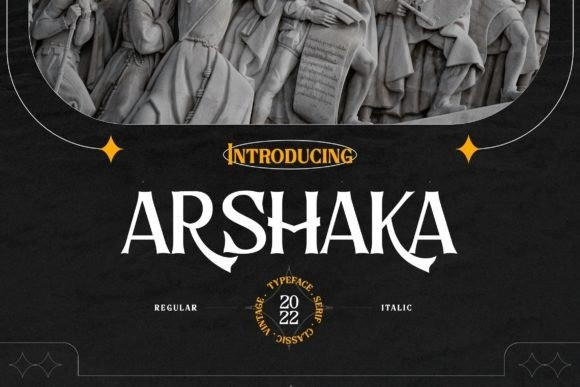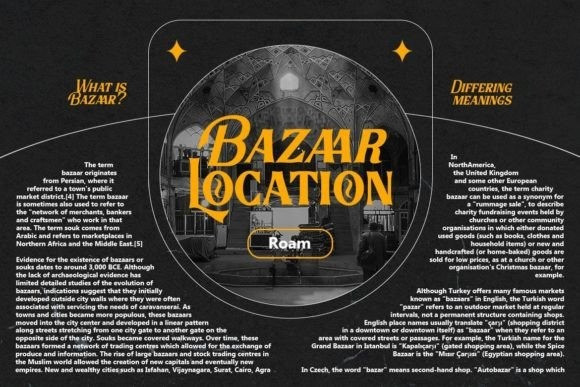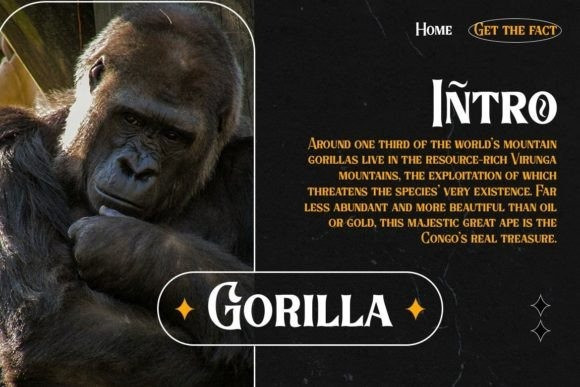
Arshaka Font
Arshaka is a graceful and elegant serif font. Its exquisite and refined style makes it incredibly fitting to a large pool of designs. The only limit is your imagination!